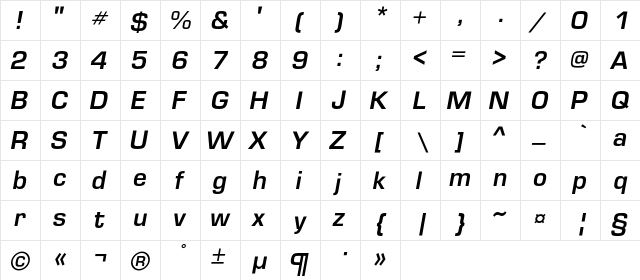
EuropeDemi Italic
Design Context for EuropeDemi Typeface
EuropeDemi offers clean, dependable letterforms without strong stylistic allegiance, making it a practical choice for designers who need flexibility. The slanted form adds forward momentum and visual energy.
Pro Tip: Try EuropeDemi for annotation and caption copy alongside an upright companion — the contrast in angle creates a dynamic but ordered typographic system.